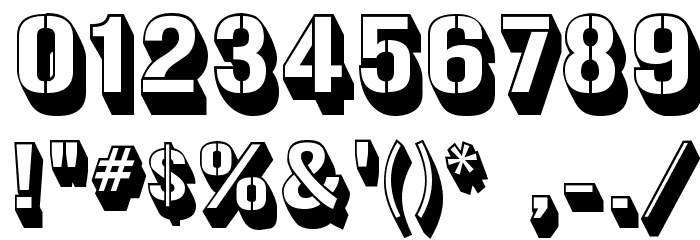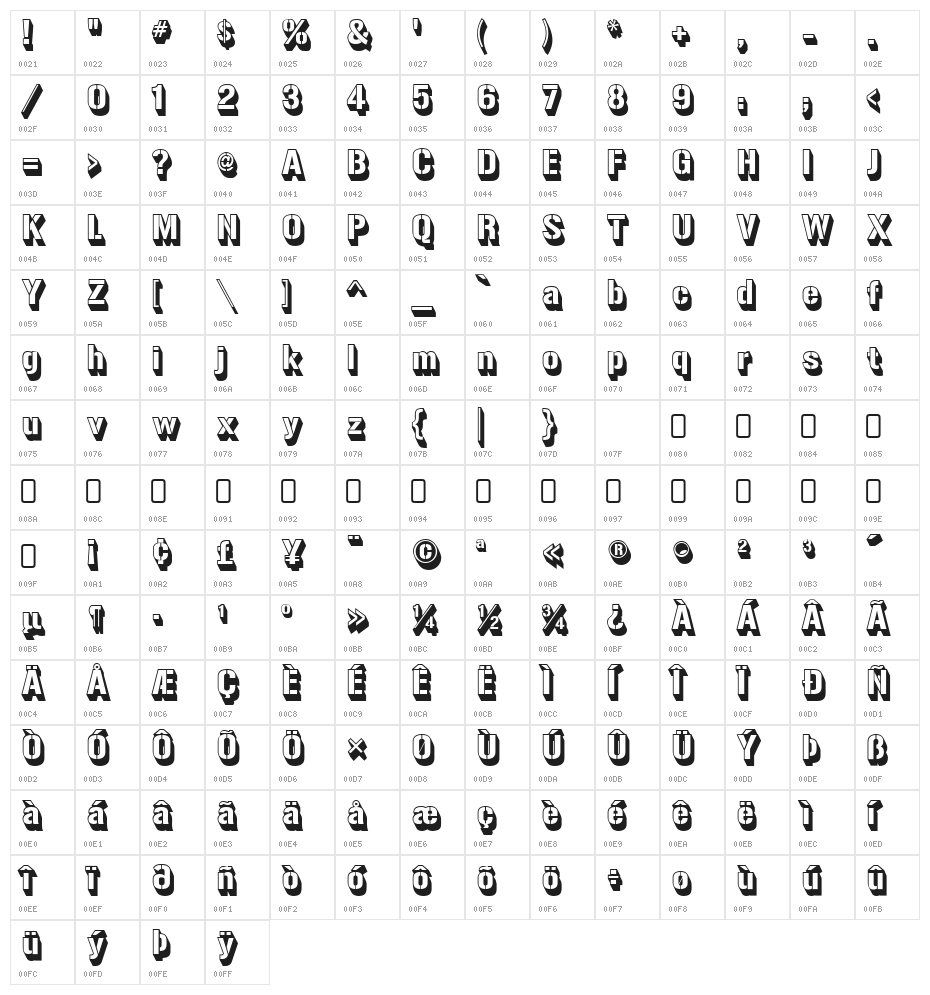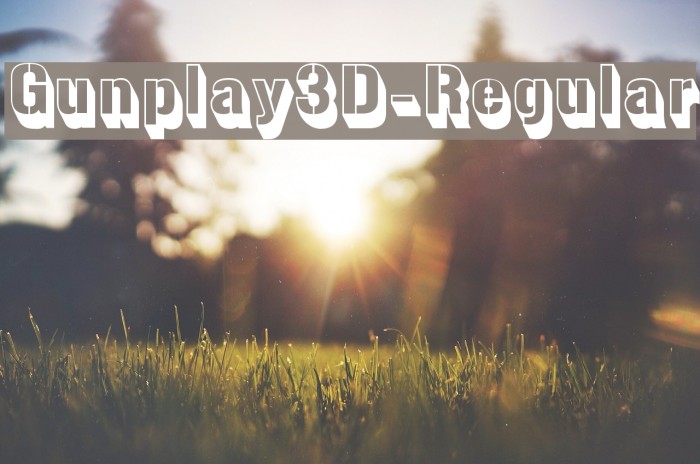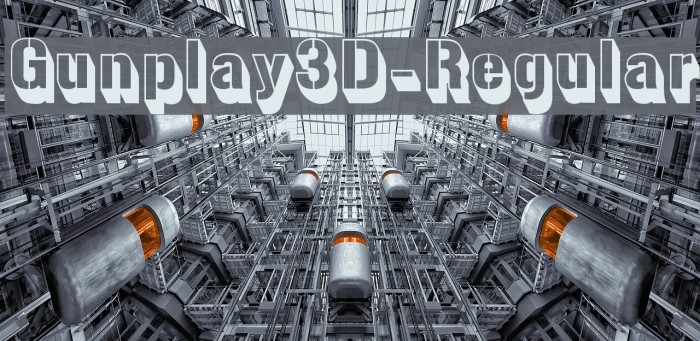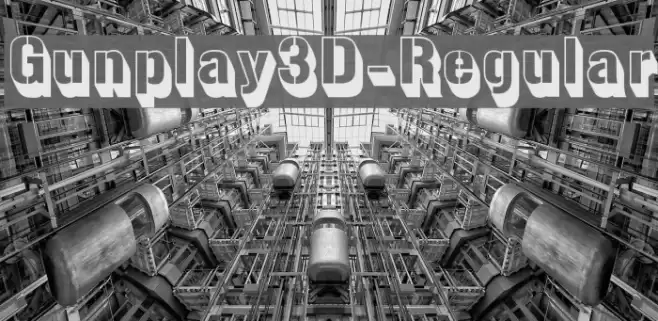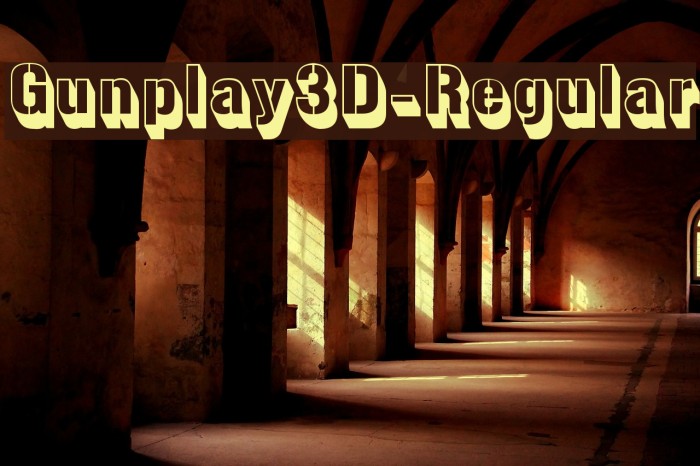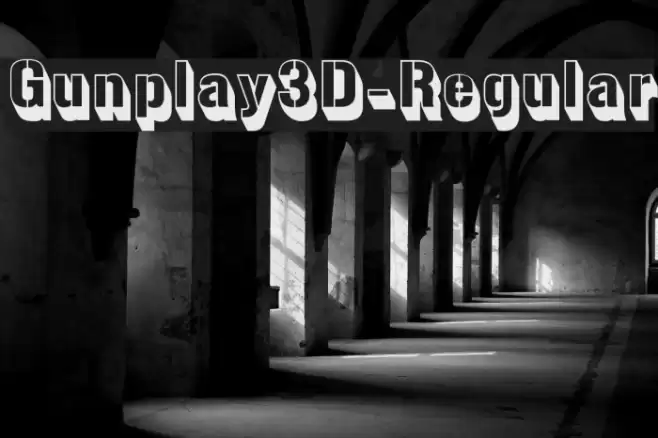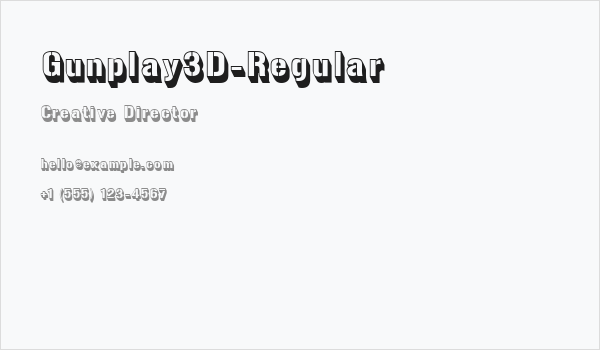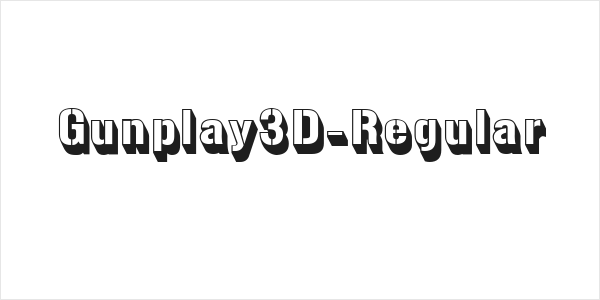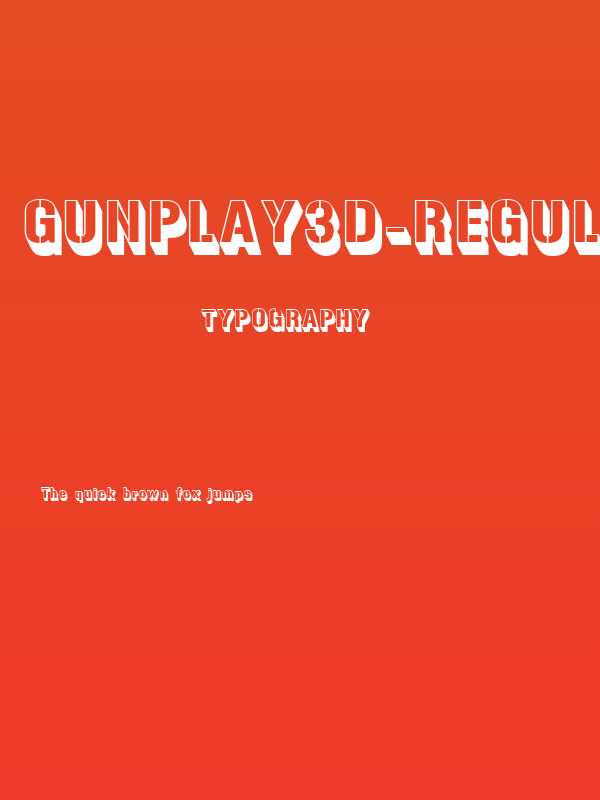
Gunplay3D-Regular Font
This font features a bold, three-dimensional design that gives each character a strong, impactful presence. The letters are blocky and robust, with a shadow effect that creates a sense of depth and dimension. The uppercase and lowercase letters maintain a consistent style, with clean lines and sharp angles. The numbers and special characters are designed to match the boldness and dimensionality of the alphabet, making the font versatile for various uses. Its unique 3D effect makes it stand out, ideal for designs that require a strong visual impact.